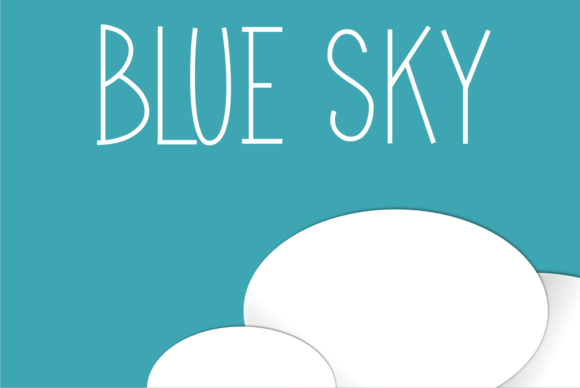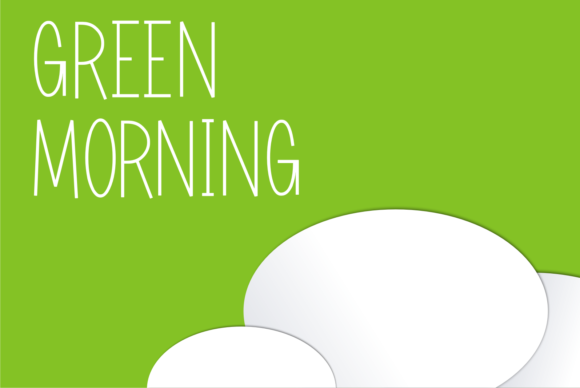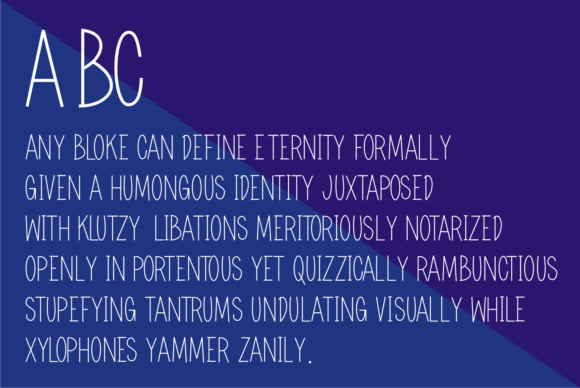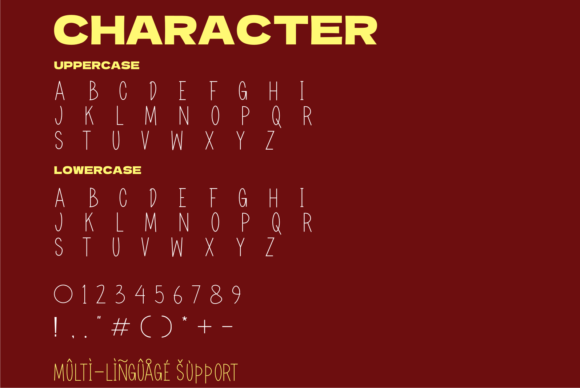
Unleash Your Creativity with the Angeline Children Font
Remember the thrill of brainstorming a new project and feeling like nothing can stop you from bringing it to life? That rush of excitement is what drives designers to push the boundaries of creativity and innovation. For many, the key to unlocking that magic lies in the right tools – and the Angeline Children Font is one of them.
This trendy sans serif font is perfect for logos, badges, clothing, posters, and any other project that needs to stand out from the crowd. Its cool and playful vibe makes it an instant favorite among designers looking to add a unique touch to their work.
By incorporating the Angeline Children Font into your projects, you’ll breathe new life into your designs and take them to the next level. Its versatility and style make it a valuable addition to any designer’s toolkit, ensuring your creations are truly unforgettable.
Angeline Children Font Key Features
- Font Size: The font is designed to be highly legible at various sizes, with optimal readability at 12-14 points.
- Unique Characteristics: Angeline Children Font features a unique, child-friendly design with rounded edges and soft lines, making it perfect for children’s books, educational materials, and other applications where a gentle, approachable tone is desired.
Designer Review: Angeline Children Font
Overall, I’d say the Angeline Children Font is a cute and playful addition to any children’s project. ✨ The rounded edges and whimsical feel make it perfect for kid-friendly materials like picture books, educational apps, or even nursery decor. ✨ I love how the font is highly legible, even at smaller sizes, making it ideal for body text or headings.
Here are some specific things that work well:
- Highly legible, even at smaller sizes
- Perfectly rounded edges for a childlike feel
- Great for picture books, educational apps, or nursery decor
- Includes a wide range of weights and styles
- May not be suitable for formal or professional materials
- Lacks a clear distinction between uppercase and lowercase letters
- Some characters may appear a bit clumsy at larger sizes
Overall, the Angeline Children Font is a great choice for any project that requires a playful, kid-friendly feel. While it may not be suitable for every project, it’s definitely a solid addition to any designer’s font library.
The Angeline Children font is ideal for:
- Wedding stationery and decorations
- Any design project requiring a playful and whimsical touch.
Alternatives to Angeline Children Font
Great Vibes Font is a modern, handwritten font that is perfect for creating a playful and whimsical atmosphere. It is ideal for use in children’s book covers, educational materials, and other projects that require a fun and youthful feel. Great Vibes Font is similar to Angeline Children Font in its playful and childlike quality, but it has a more cursive and flowing feel.
Alex Brush Font is a elegant, handwritten font that is perfect for creating a sophisticated and refined atmosphere. It is ideal for use in luxury branding, advertising, and other projects that require a high-end feel. Alex Brush Font is similar to Angeline Children Font in its flowing and handwritten feel, but it has a more polished and refined quality.